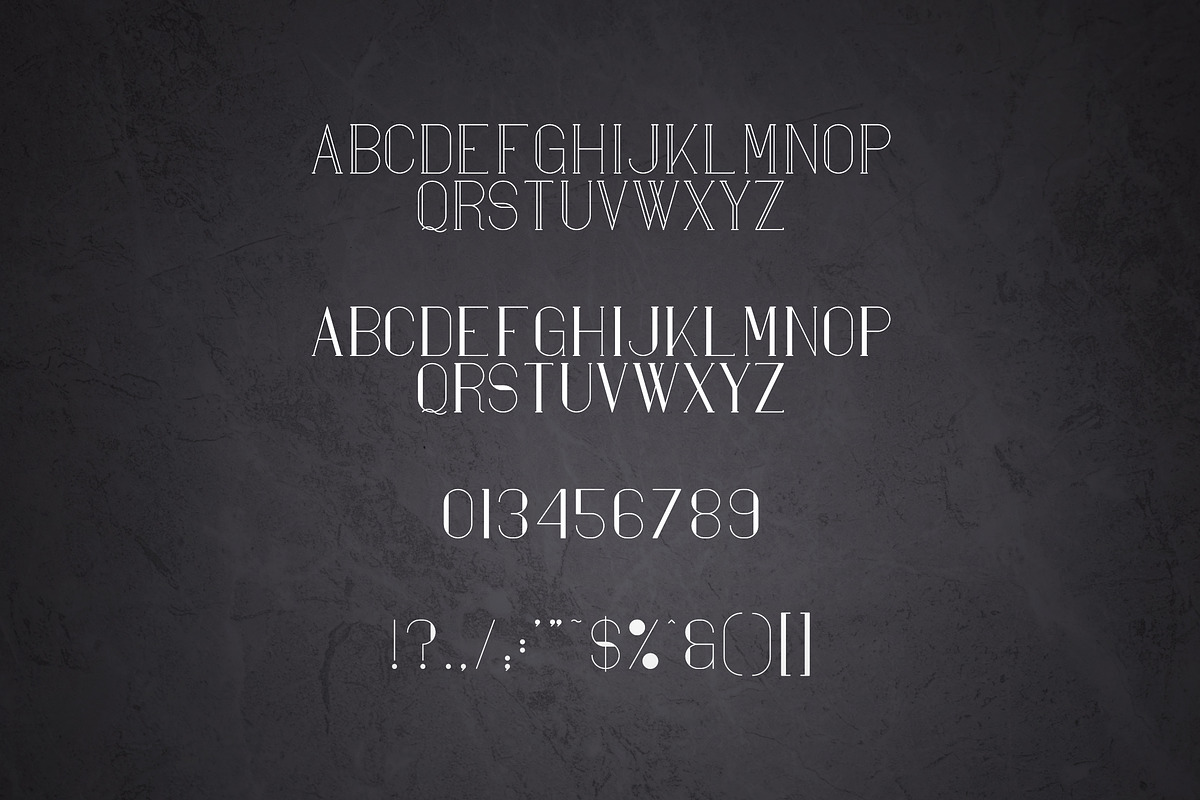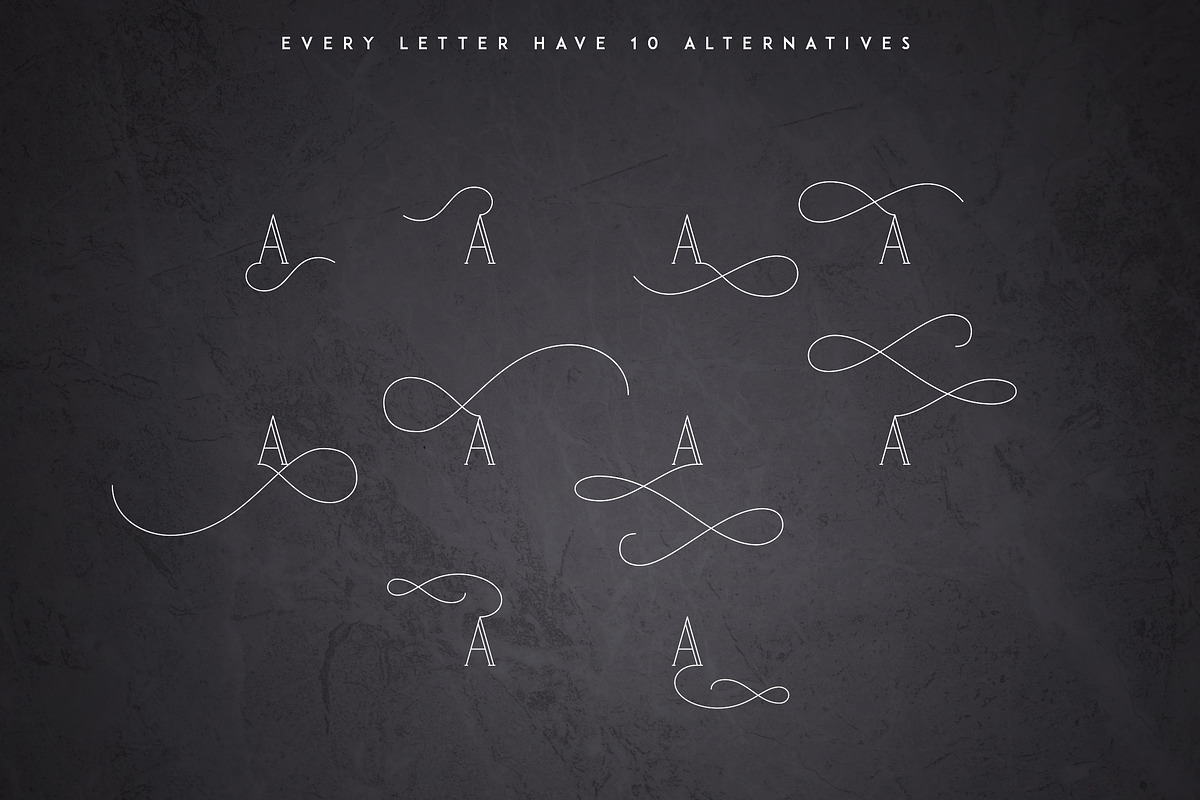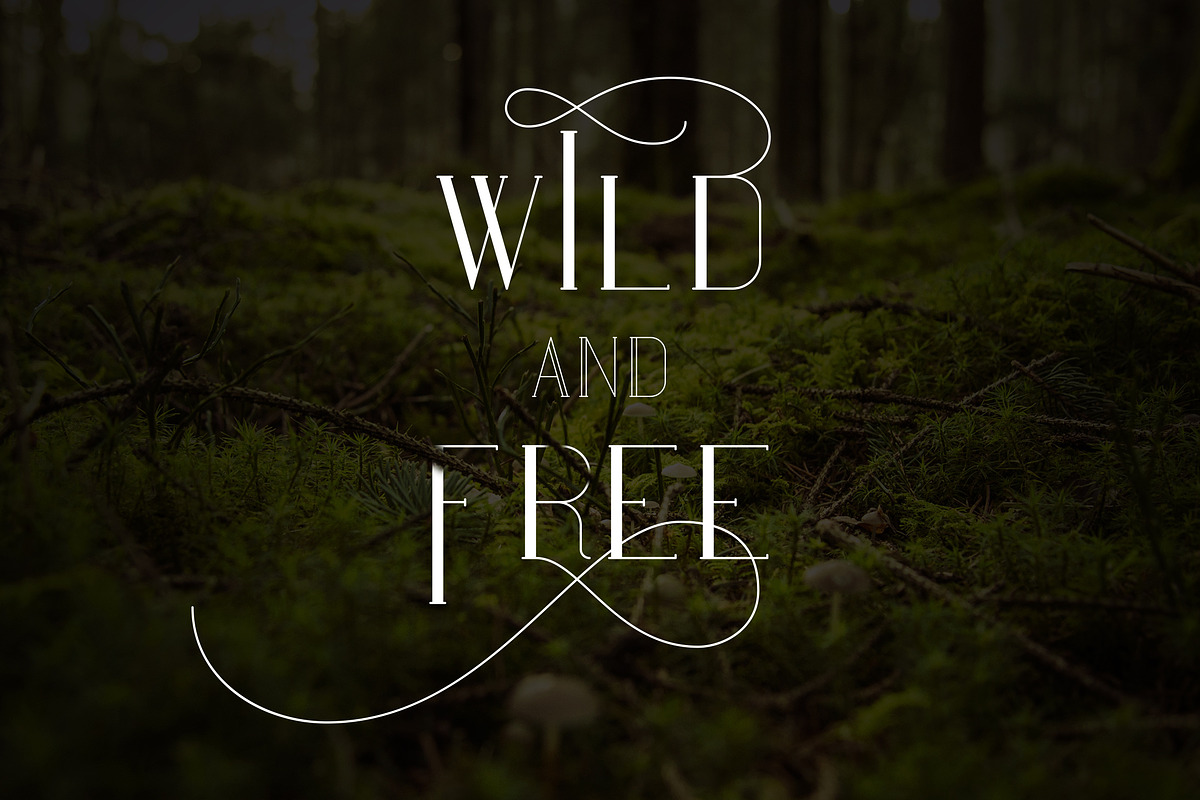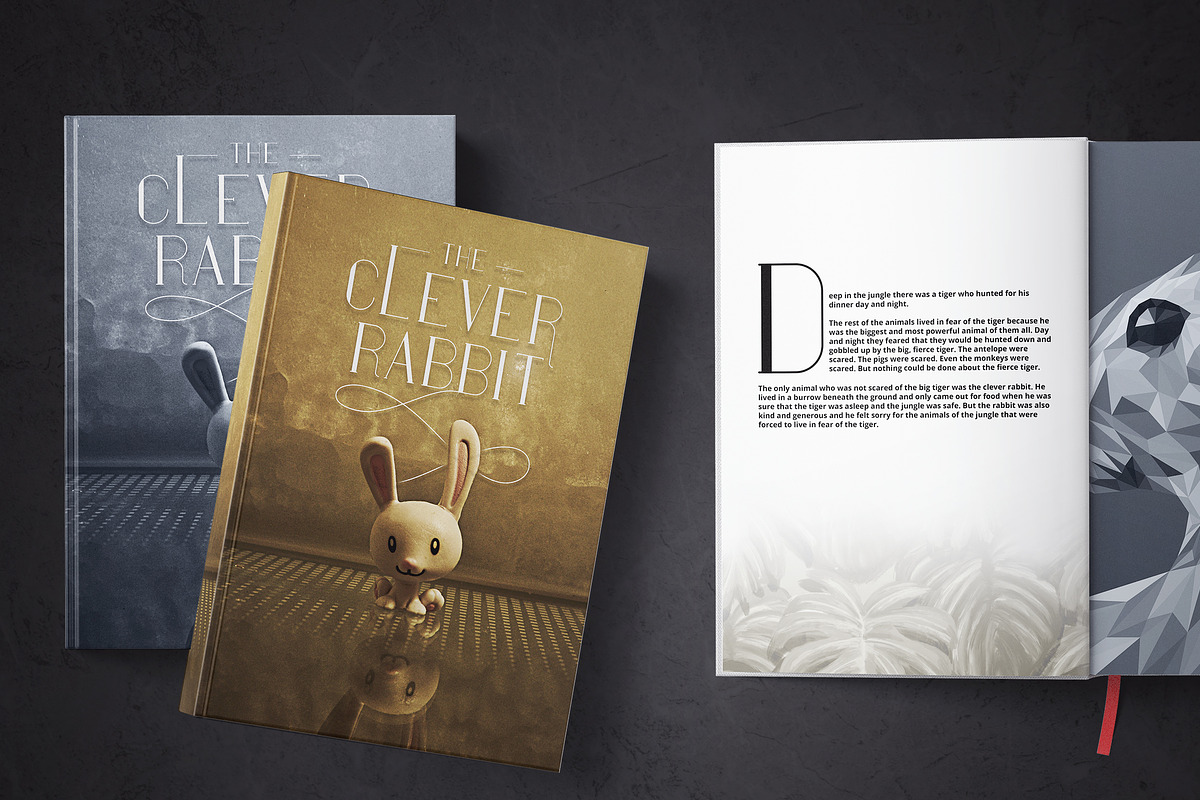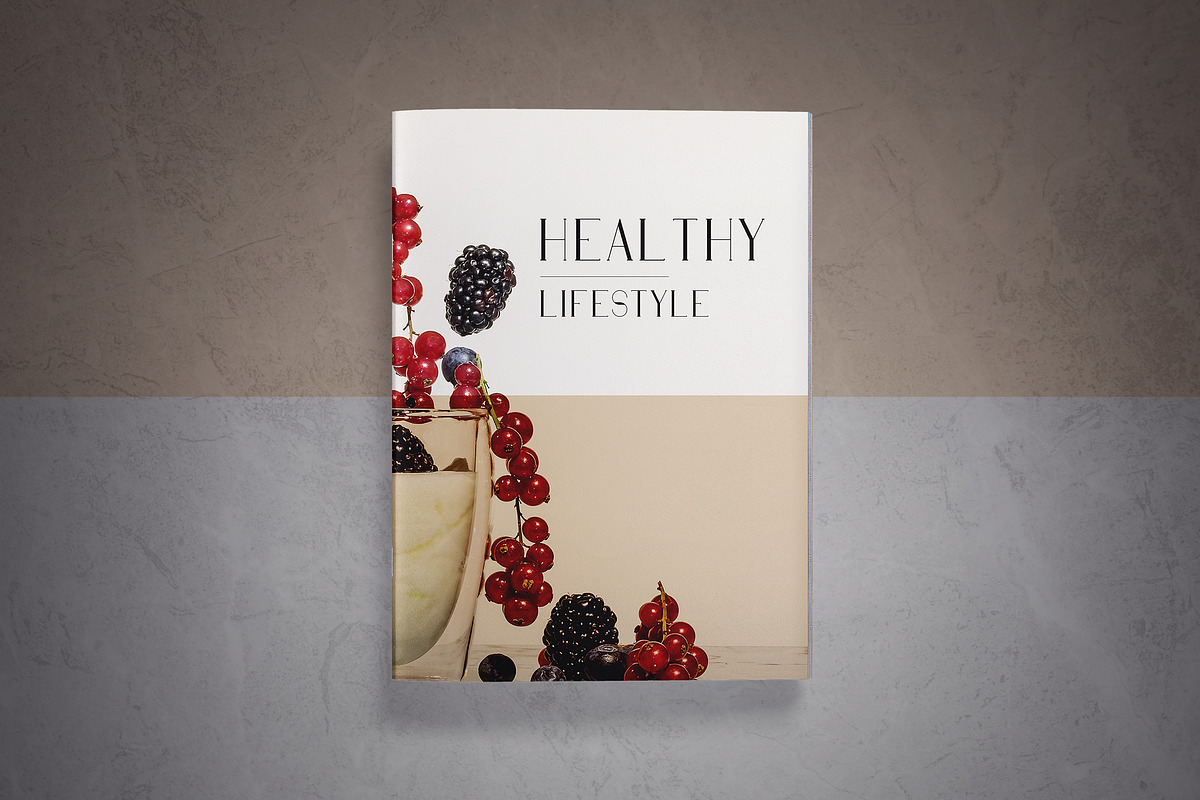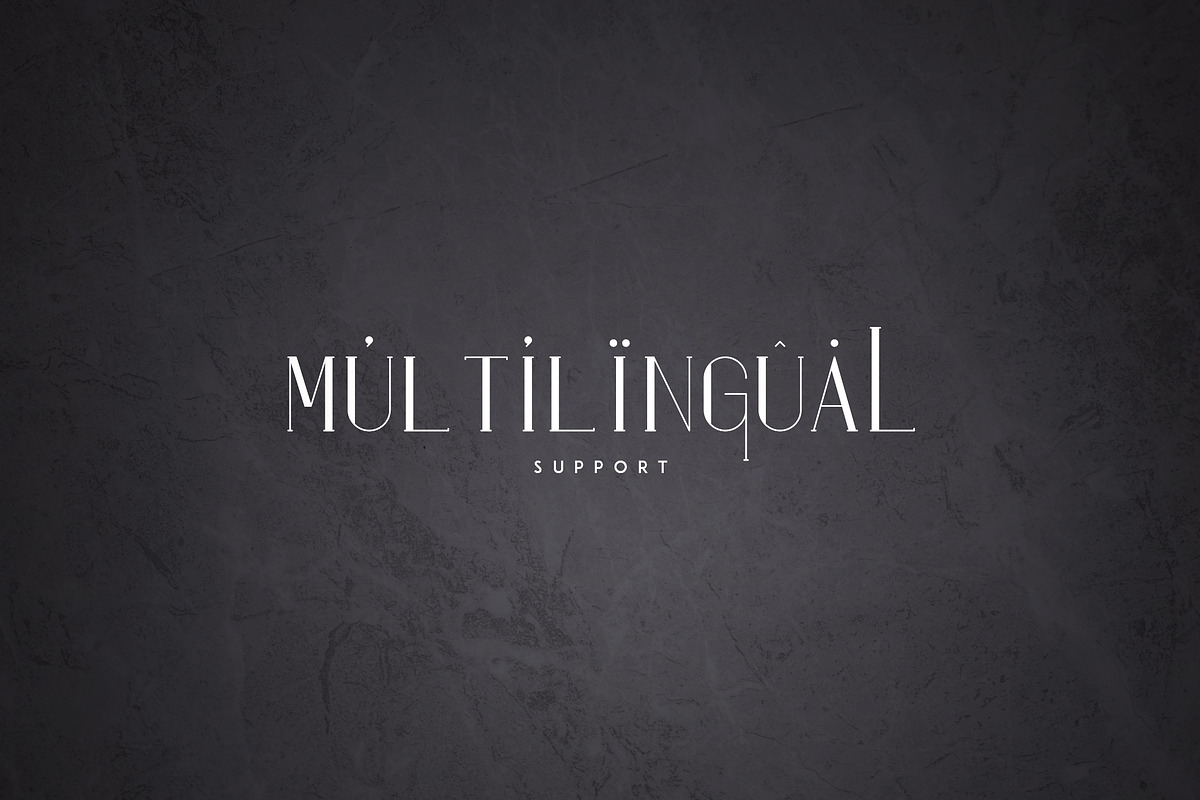
Maria is elegant high end serif font with multilingual support and 10 alternative glyphs for each letter to enchant your design. It's a very versatile font that works great in large and small sizes.
Maria is perfect for branding projects, home-ware designs, product packaging, wedding invitations, magazine headers - or simply as a stylish text overlay to any background image.
10 additional fonts with swashes